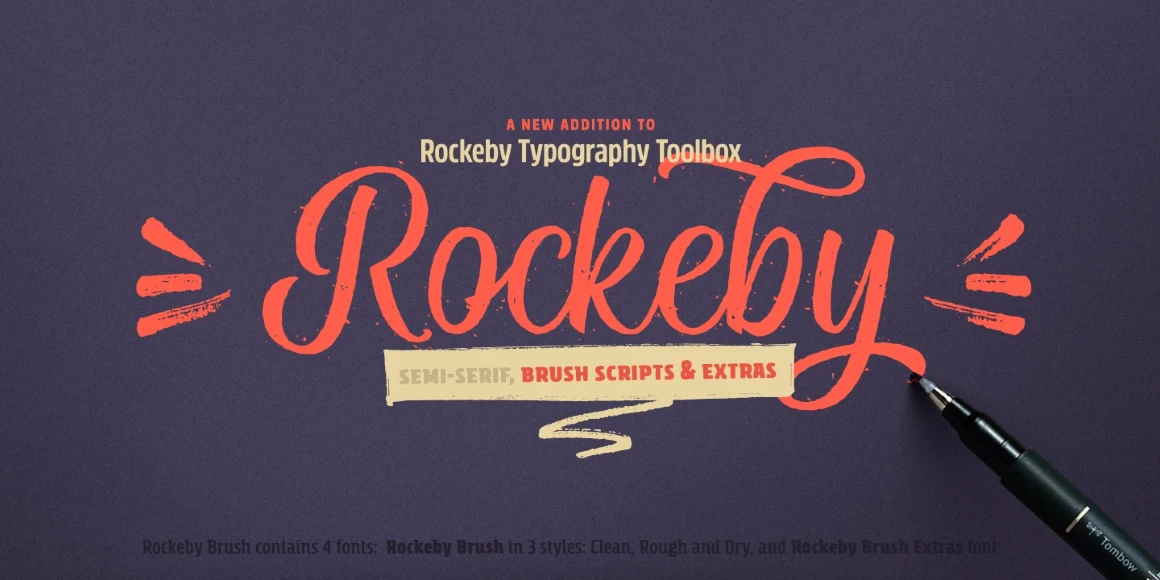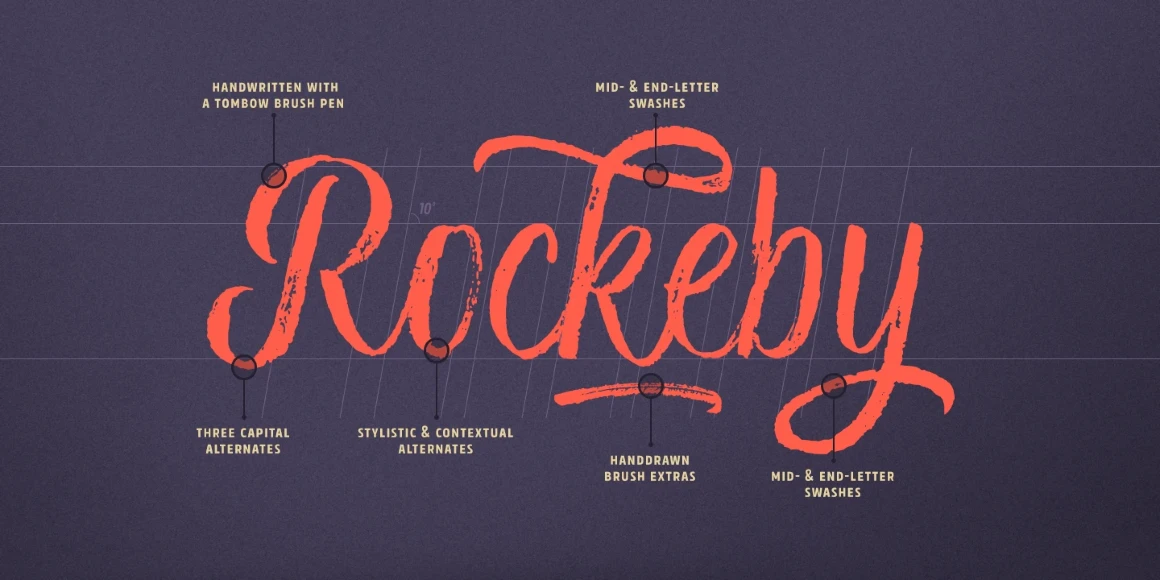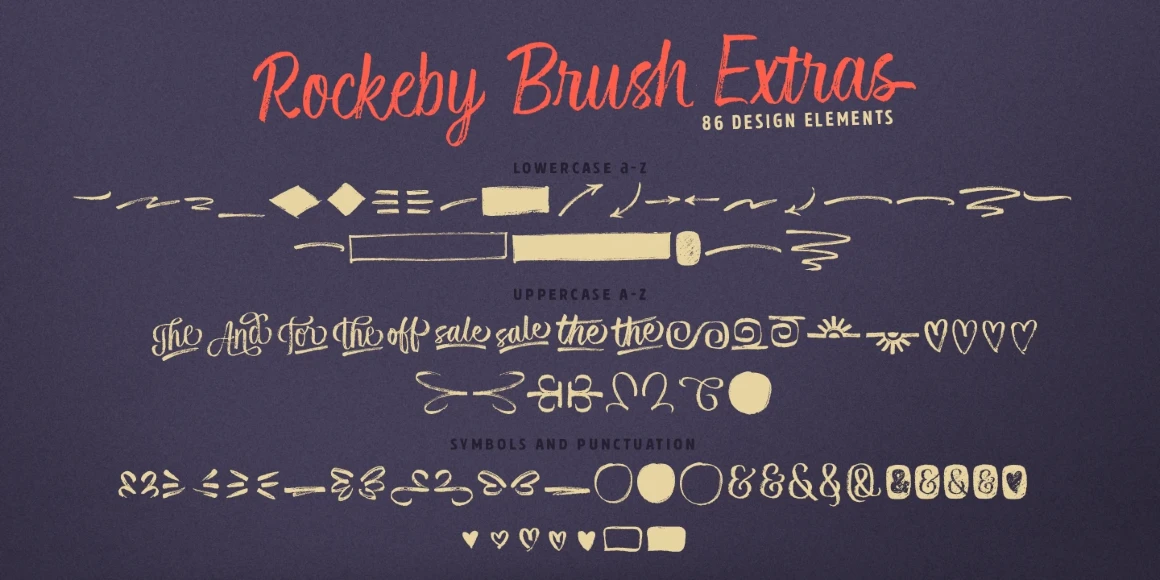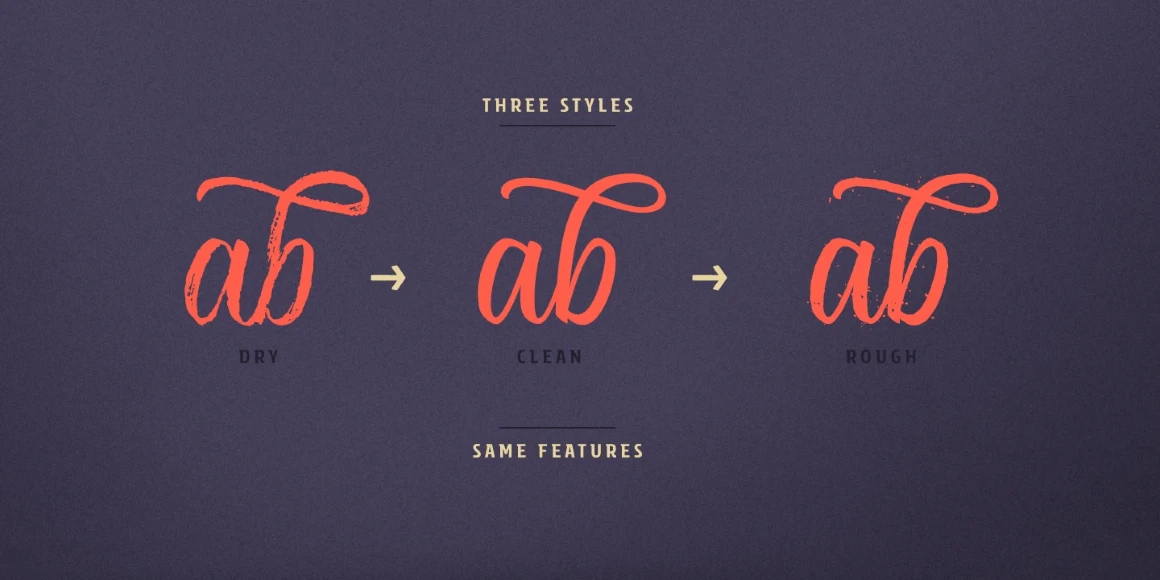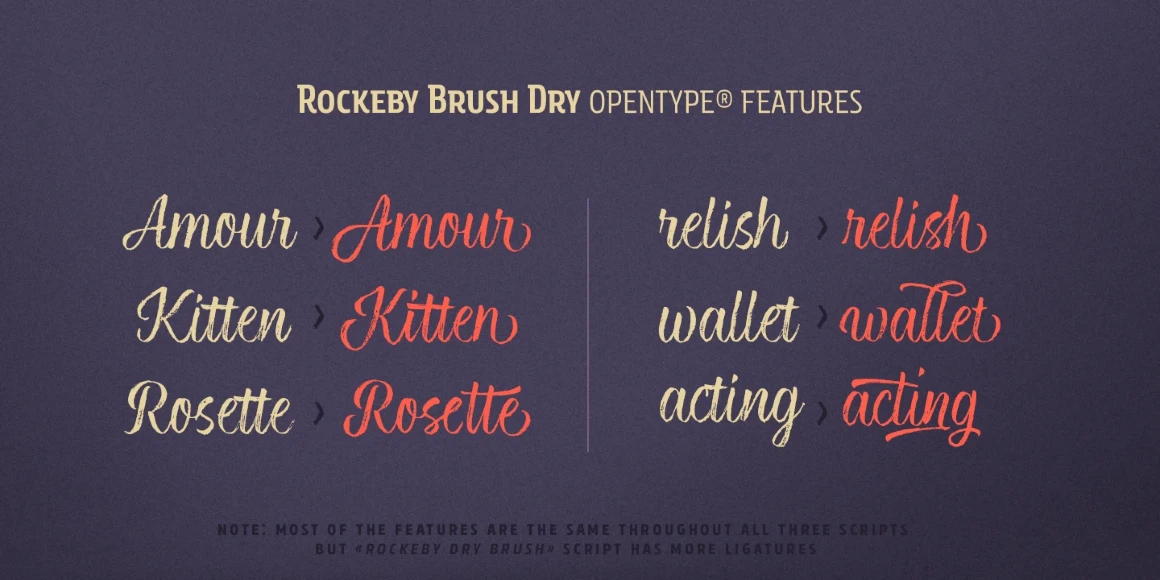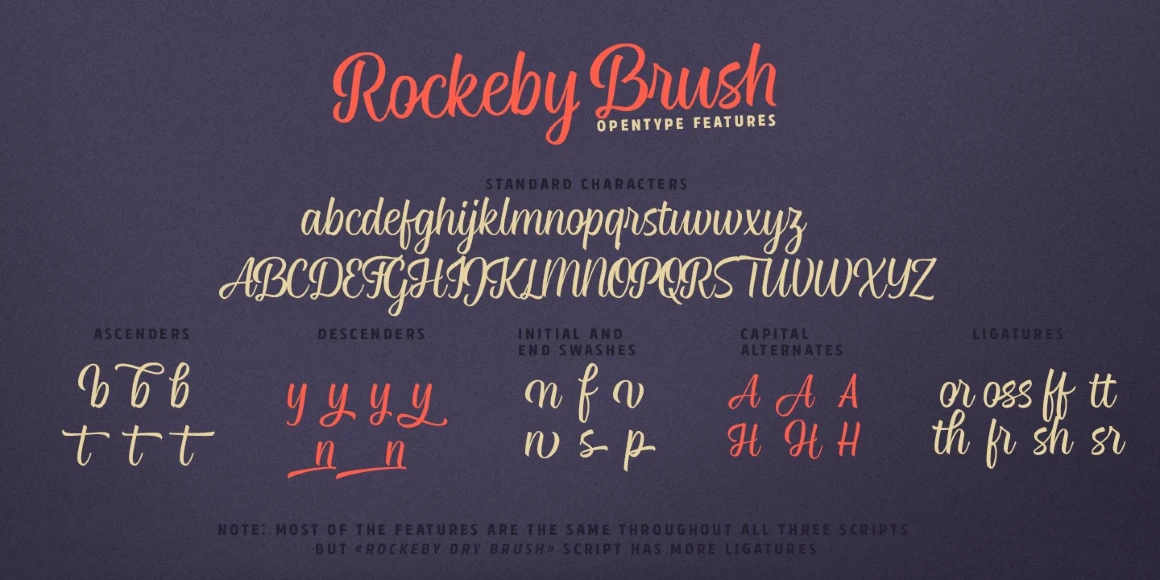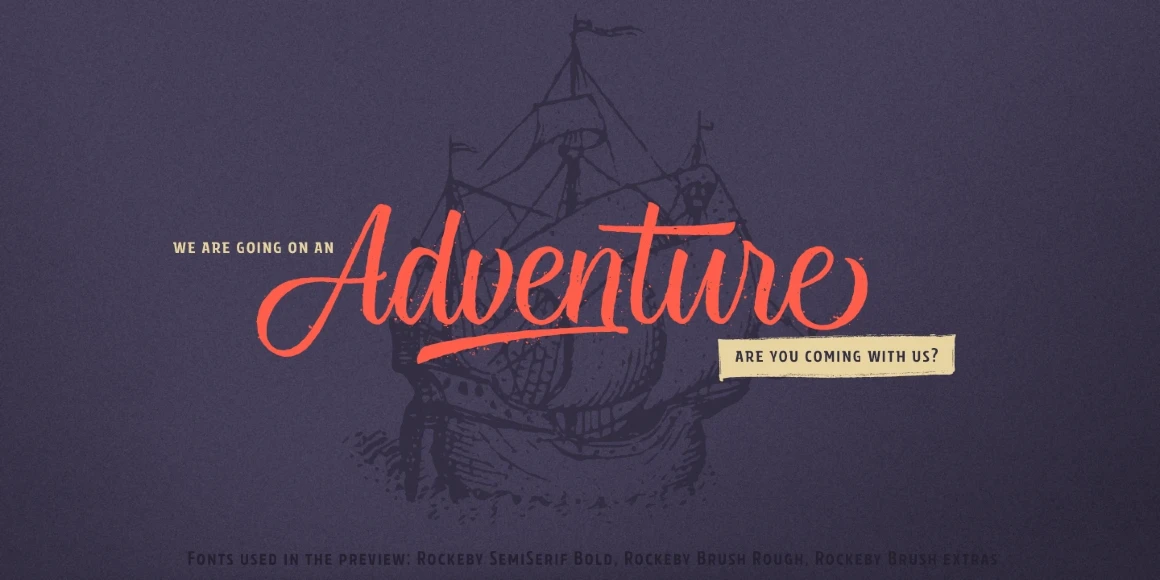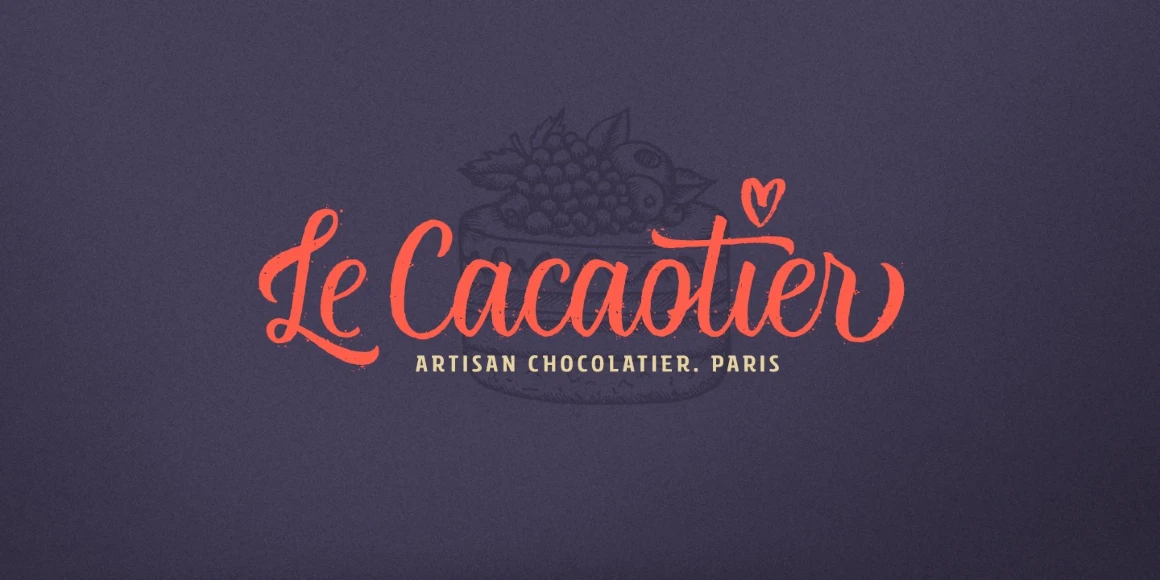
Rockeby Brush
By Elena Genova
Rockeby Brush is a new font family that joins the growing collection of the Rockeby Typography Toolbox. It contains three brush styles — Dry, Rough, and Clean — and a Brush Extras font that contains different design elements for a logo, website, or multi-faceted project. Notice how the Rough Brush adds texture to the area around it, too! You can successfully mix and match all 50 fonts within the Rockeby Typography Toolbox to give your design a stylish look.